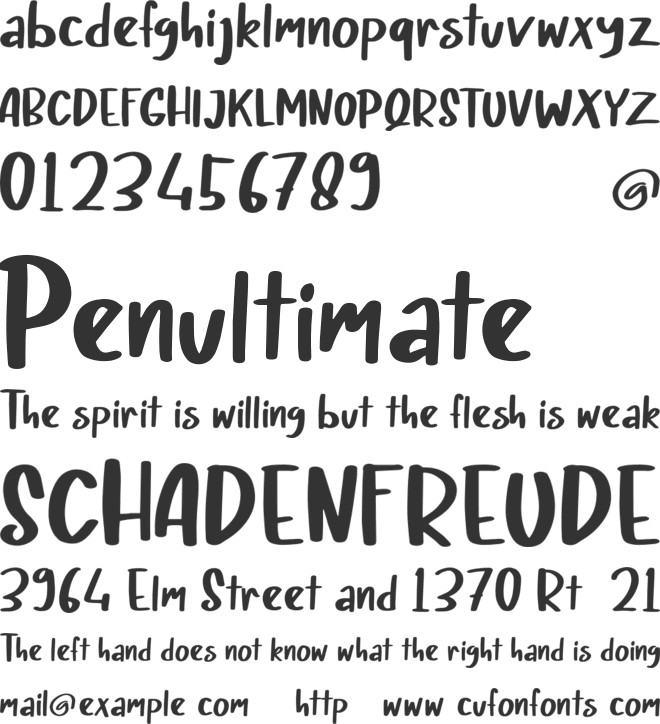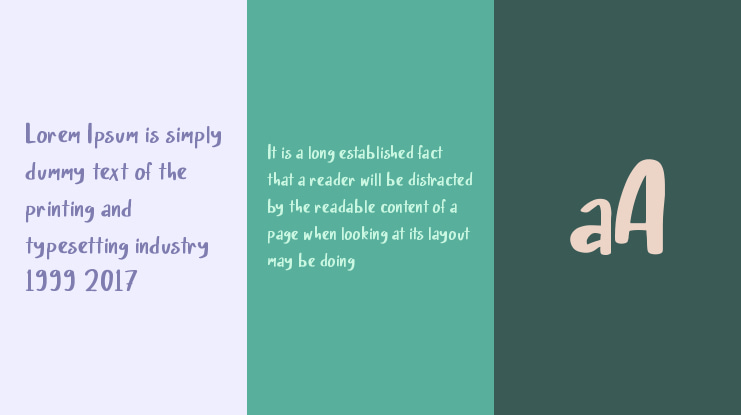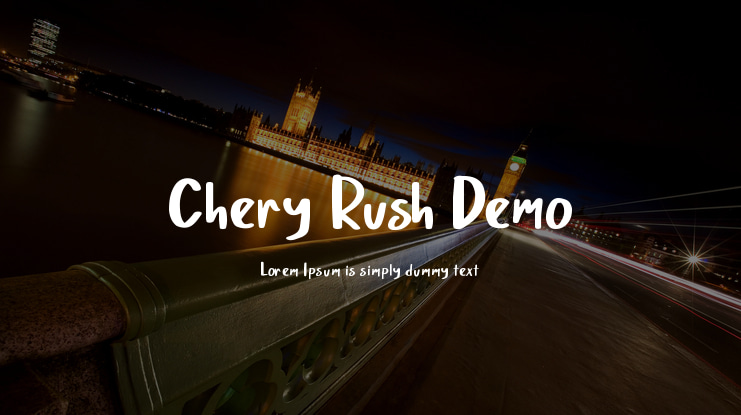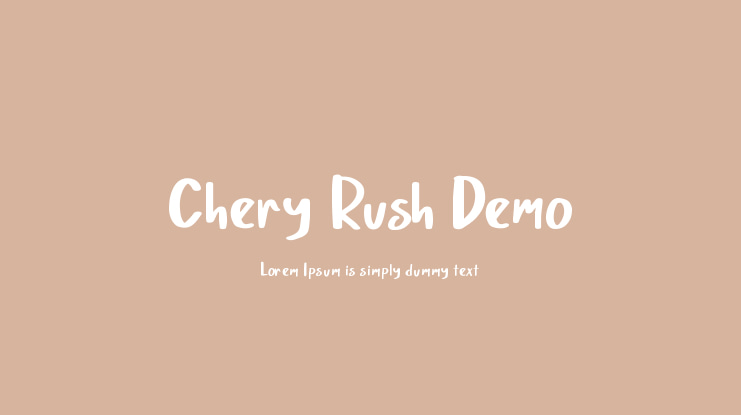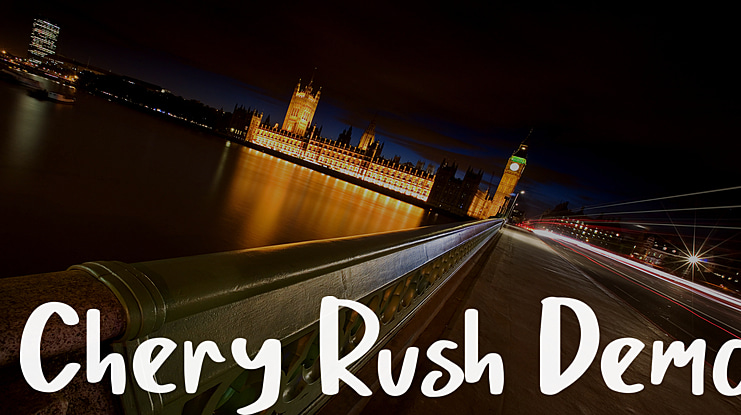
Chery Rush Demo Font
CHERY RUSH It's fun, it's cute, it's smooth, and it's mighty splash. A mixed-case font (Uppercase and lowercase) with lots of combination possibilities, make greats fun display! its good to make a logotype, sticker, fun kids sign, and other lettering project. This fun is perfect combination uppercase and lowercase.
This font contains all uppercase, lowercase, numbers and basic punctuation also a fun 40 ligatures. (If you're having trouble finding the basic punctuation, you can access it in the Glyphs panel)